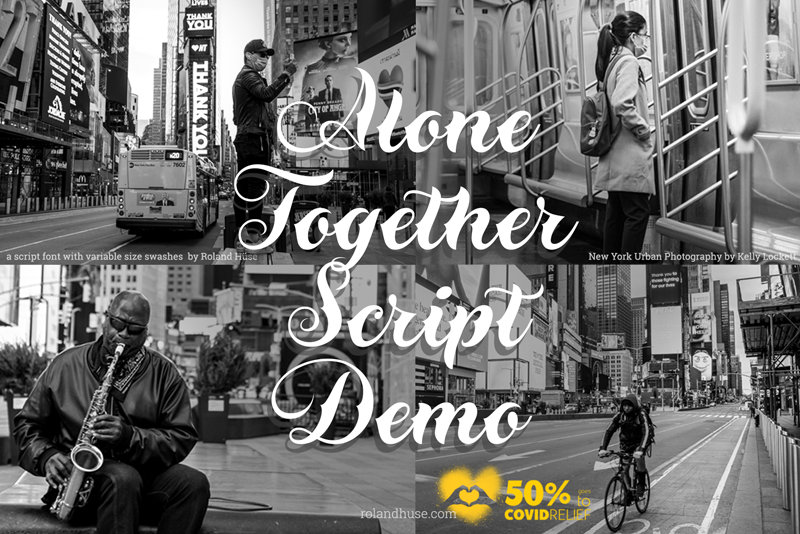
Alone Together Script is a tattoo style typeface. This is the Demo version and is free for personal use only. The full version comes with with size-variable swashes and open type features such as stylistic alternates for lowercase letters as well as some contextual replacements for final forms of a. c d e f h k l m n o q r t u v w x z and entrance stroke versions for r s and z. As for extra swashes hyphen (-) and underscore (_) have also 2 alternates. This font is a contribution to Covid relief funds and individuals who are in need, 50% of sales goes this cause. There is also a challenge on social media where you can submit your artwork featuring this font with a hashtag #alonetogetherfont at @alonetogetherfont on instagram or facebook! Font introduction video on youtube https://youtu.be/aQhDueH3lsg OpenType Guide PDF: https://drive.google.com/file/d/19xibTYre6XjhbaqWncddJ_1lFXglP3q_/view?usp=sharing Special thanks to the Photography and music that is exclusive to this font : �� Empty streets of New York by Kelly Lockett @kellylockk � �Time� soundtrack by Zoltan Valter (STU Recordings) @sturecordings sturecordings.ch |